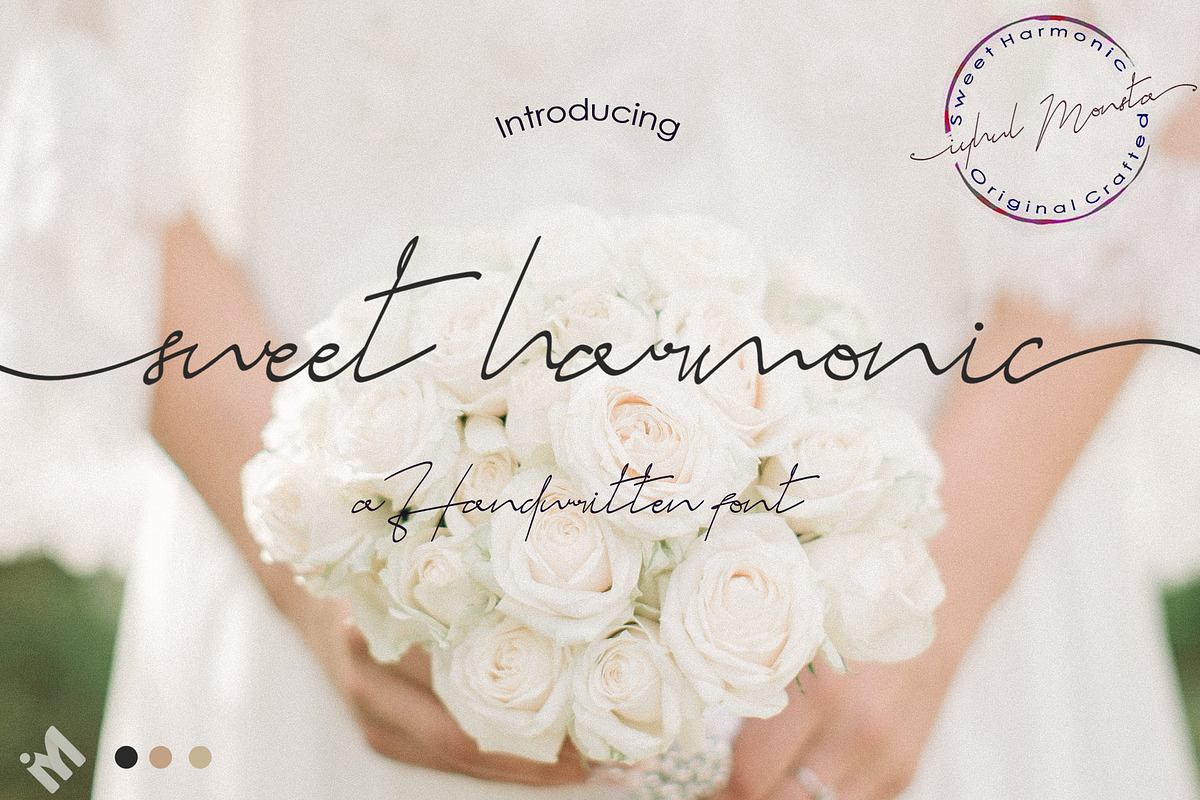
Sweet Harmonic Font Free Download is a delicate and charming handwritten script font that brings warmth, elegance, and personality to your designs. With its smooth curves, flowing strokes, and subtle bounce, this font is ideal for wedding invitations, feminine branding, love notes, social media graphics, and lifestyle blog headers.
Sweet Harmonic features stylish ligatures and alternate characters, giving you the flexibility to craft beautifully personalized typography. It’s perfect for projects that call for a romantic, whimsical, or handcrafted feel—both in print and digital formats.